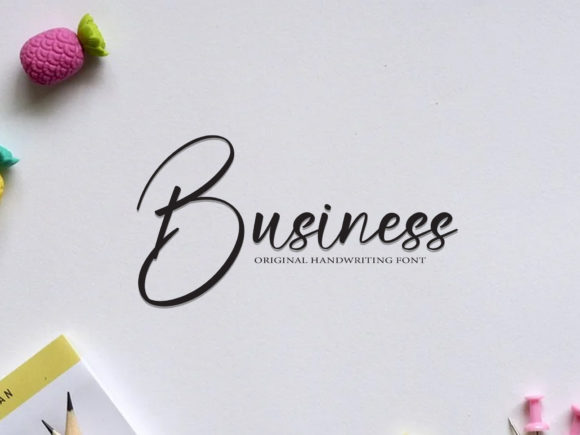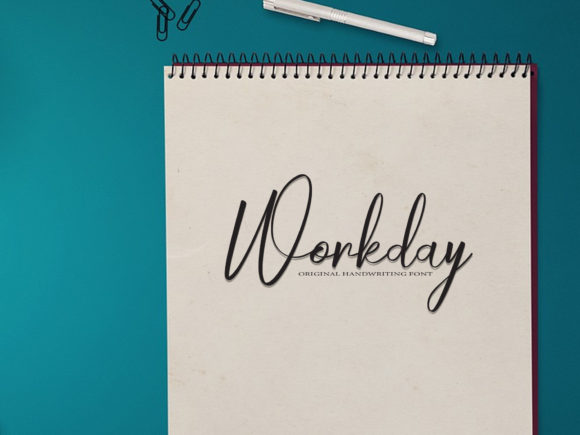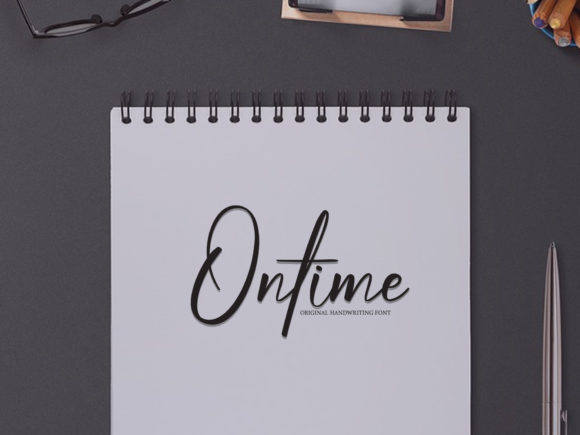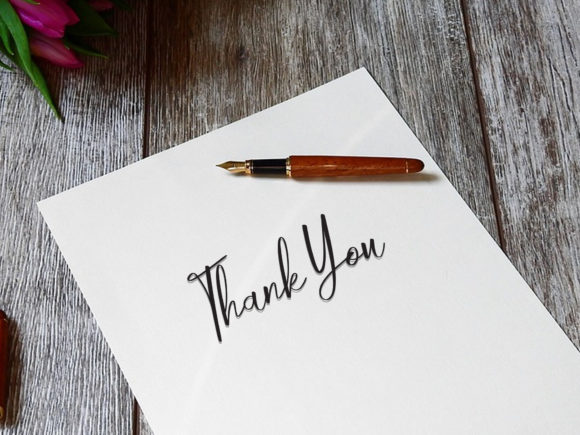
Unlocking the Art of Handwritten Charm
Have you ever sat down with a pen and paper, watching as your thoughts flow effortlessly onto the page in a beautiful, cursive script? It’s a magical moment, one that brings a touch of personality to even the most mundane tasks. For designers, finding ways to capture this essence in digital form can be a challenge – until now.
Enter the Creative Writing Font, a delicate handwritten font that’s been carefully crafted to produce cool and unique designs. Whether you’re writing letters, invitations, or even labeling food products, this font adds a touch of elegance and sophistication to any project. For designers, the Creative Writing Font is a valuable tool – it allows you to add a personal touch to your work, without sacrificing precision or professionalism.
Creative Writing Font Key Features
- Unique Characteristic: The font features a subtle, hand-drawn aesthetic with varying line widths, creating a sense of movement and expression that complements creative writing.
- Font Family: Part of a larger font family with multiple weights and styles, allowing authors to experiment with different moods and tones in their writing.
Designer Review: Creative Writing Font
Overall, I think the Creative Writing Font has some great qualities, but it also has some limitations that prevent it from being a top choice for writers and designers.
- Unique Character: The font has a distinctive, handwritten feel that can add a touch of personality to written content.
- Ease of Reading: Despite its cursive nature, the font is surprisingly easy to read, even for longer passages.
- Customization Options: The font comes with a range of customization options, including different font weights and styles, which can help writers achieve their desired look.
- Difficulty with Digital Use: Unfortunately, the font doesn’t always translate well to digital use, and can appear blurry or distorted on screens.
- Limited Compatibility: I also found that the font doesn’t work well with certain software or platforms, which can be frustrating for writers and designers.
- Overuse: The font’s unique style can also lead to overuse, which can make it feel tired and unoriginal.
Overall, I think the Creative Writing Font is a solid choice for writers and designers who want to add a touch of personality to their work. However, its limitations mean it’s not a top choice for me, and I would recommend using it sparingly and in conjunction with other fonts to avoid overuse.
For best results, use the Creative Writing Font in conjunction with a background image or color that complements the font’s style.
Common use cases include creating book covers, posters, and social media graphics.